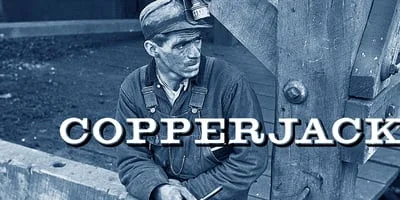
Copperjack Font
Copperjack Font is perfect for mining industry branding, metal working shop signage, industrial machinery labels, copper product packaging, steampunk-themed designs, vintage mining museum displays, metalworking craft workshops, industrial heritage projects, mining equipment marketing, artisan metalwork branding, and any project that requires robust metallic character with industrial mining authenticity.
What makes Copperjack Font exciting is its powerful embodiment of mining heritage and metalworking craftsmanship through rugged letterforms that capture the strength and durability of copper mining operations and industrial metalwork. This substantial typeface features bold, weathered characteristics with industrial copper-inspired details that convey reliability, toughness, and connection to mining traditions. The font's metallic character adds instant industrial credibility and mining appeal to any design, making it perfect for brands celebrating heavy industry and metalworking excellence.
Copperjack Font comes in multiple font families including Regular, Bold, Light, Condensed, Weathered, and Industrial variations, offering designers comprehensive options to create mining compositions and achieve the perfect metalworking aesthetic for industry-focused design projects.
Whether you're developing mining industry identity, creating metalworking promotional materials, or designing industrial heritage campaigns, Copperjack Font provides the ideal solution for projects demanding authentic mining character and metalworking sophistication. This robust typeface excels in display applications where industrial presence is essential, ensuring your designs communicate mining expertise and metalwork craftsmanship. The weathered character and metallic styling of Copperjack Font make it an indispensable tool for designers who prioritize mining heritage, industrial metalwork, and heavy industry authenticity in their typographic selections.